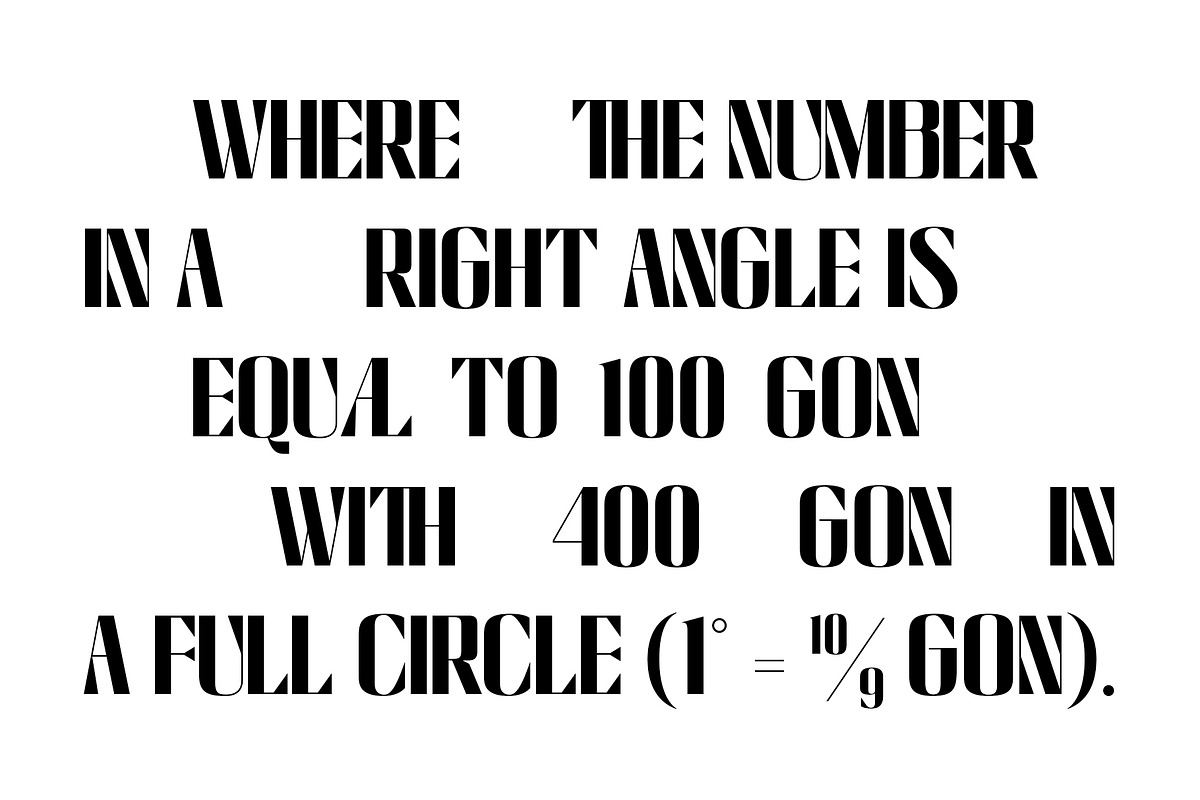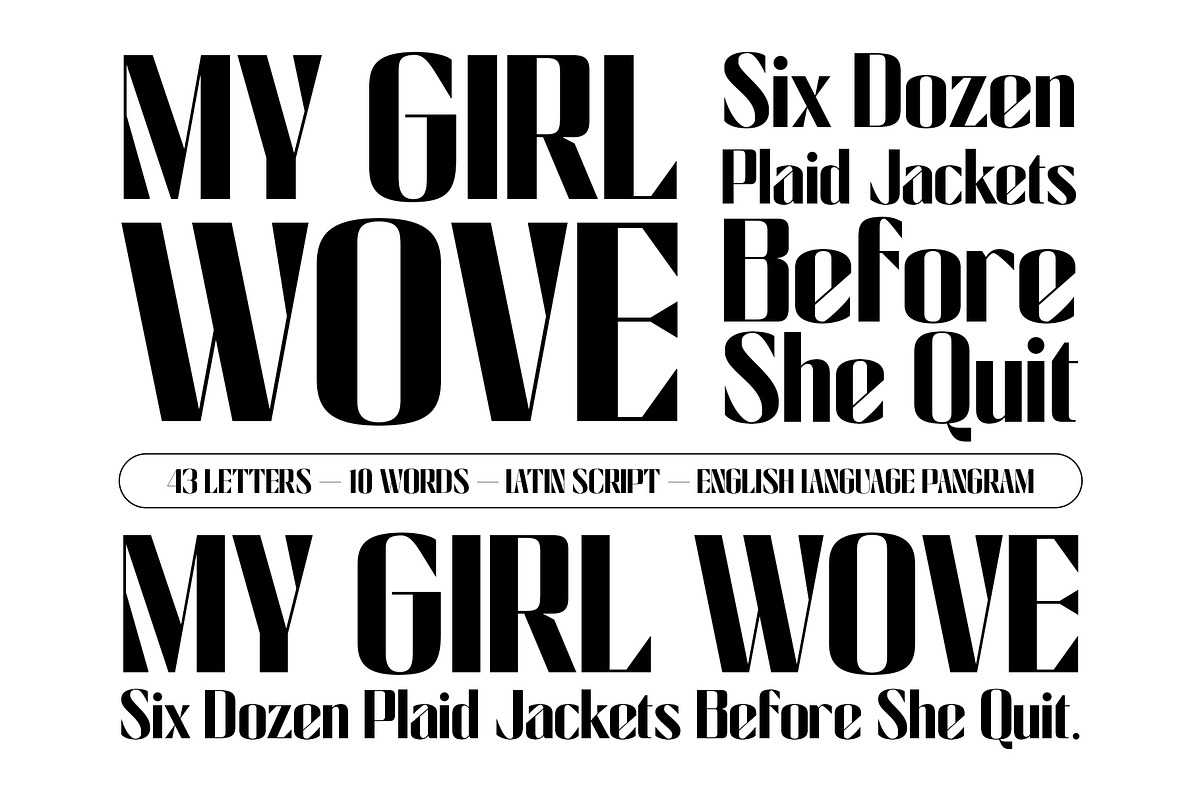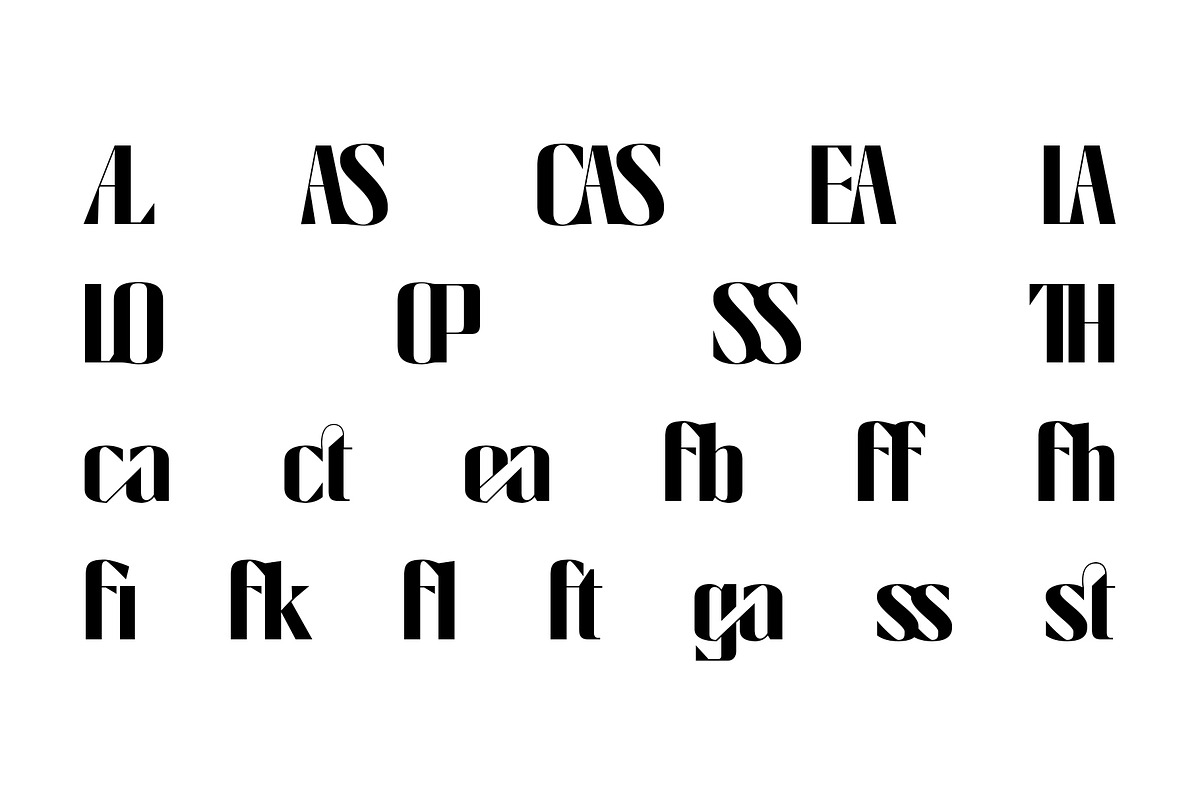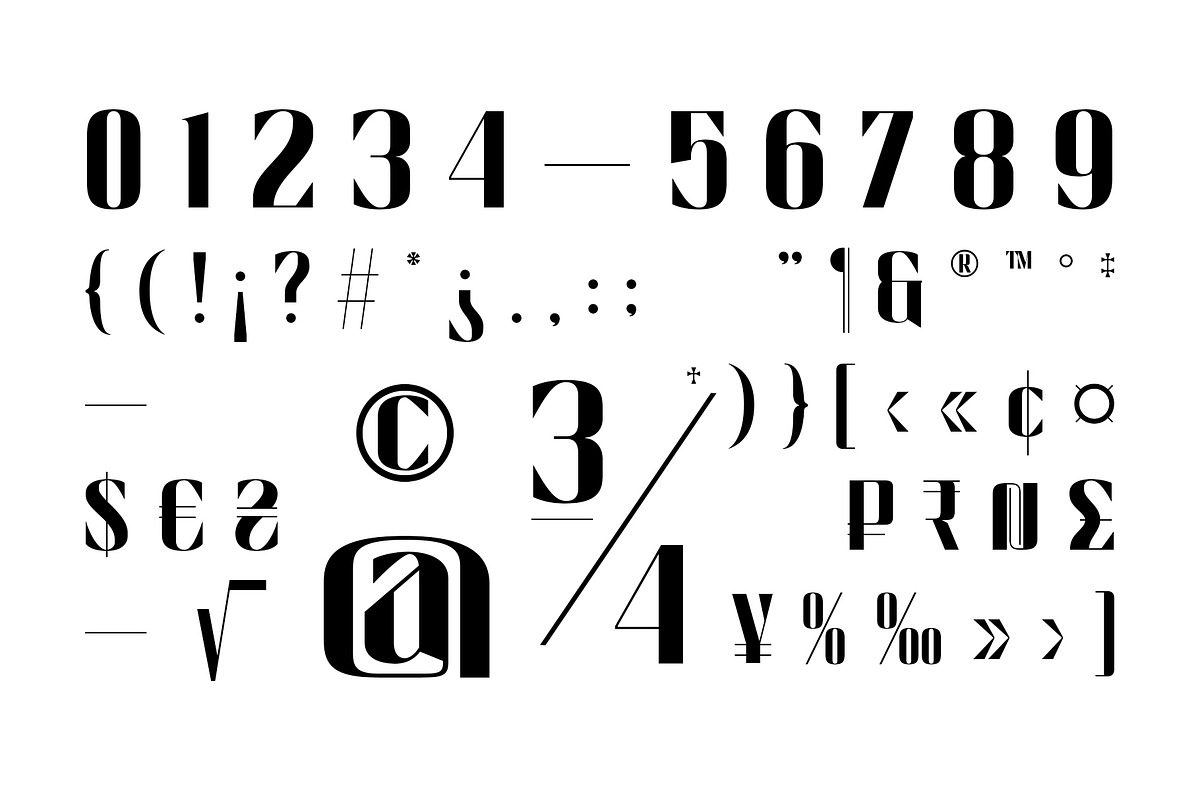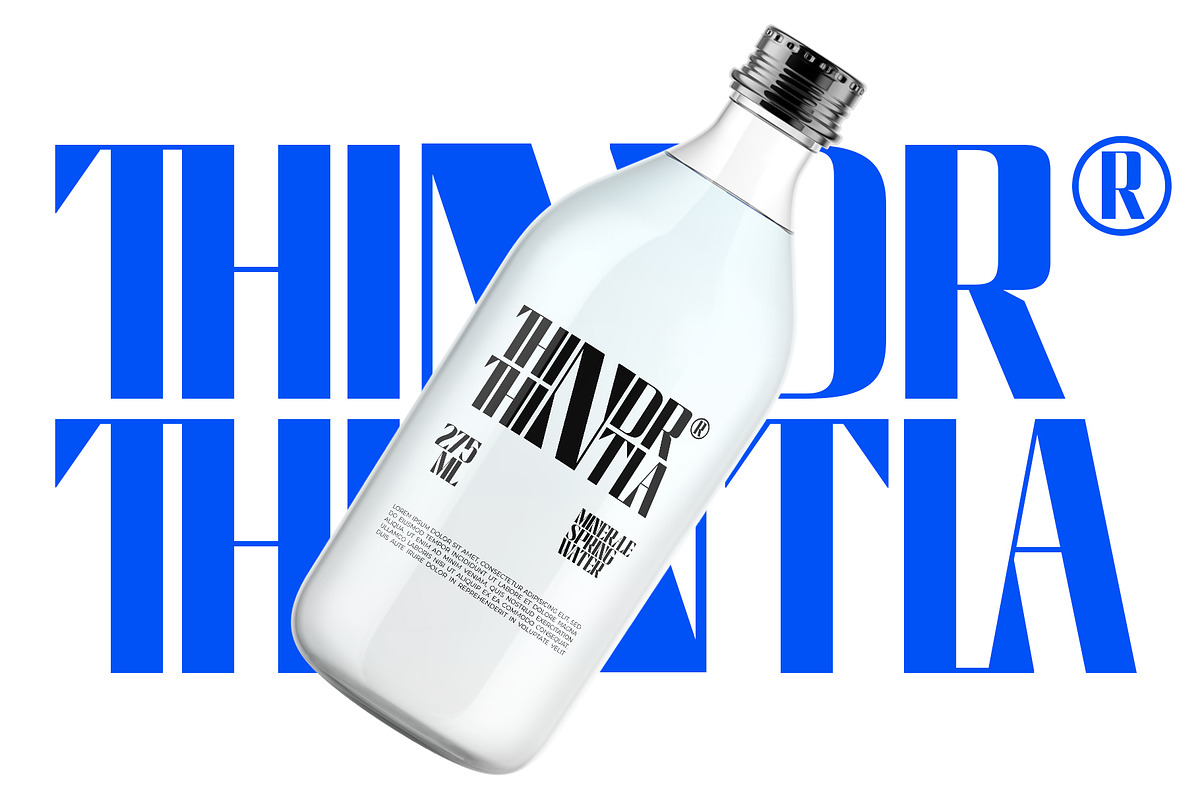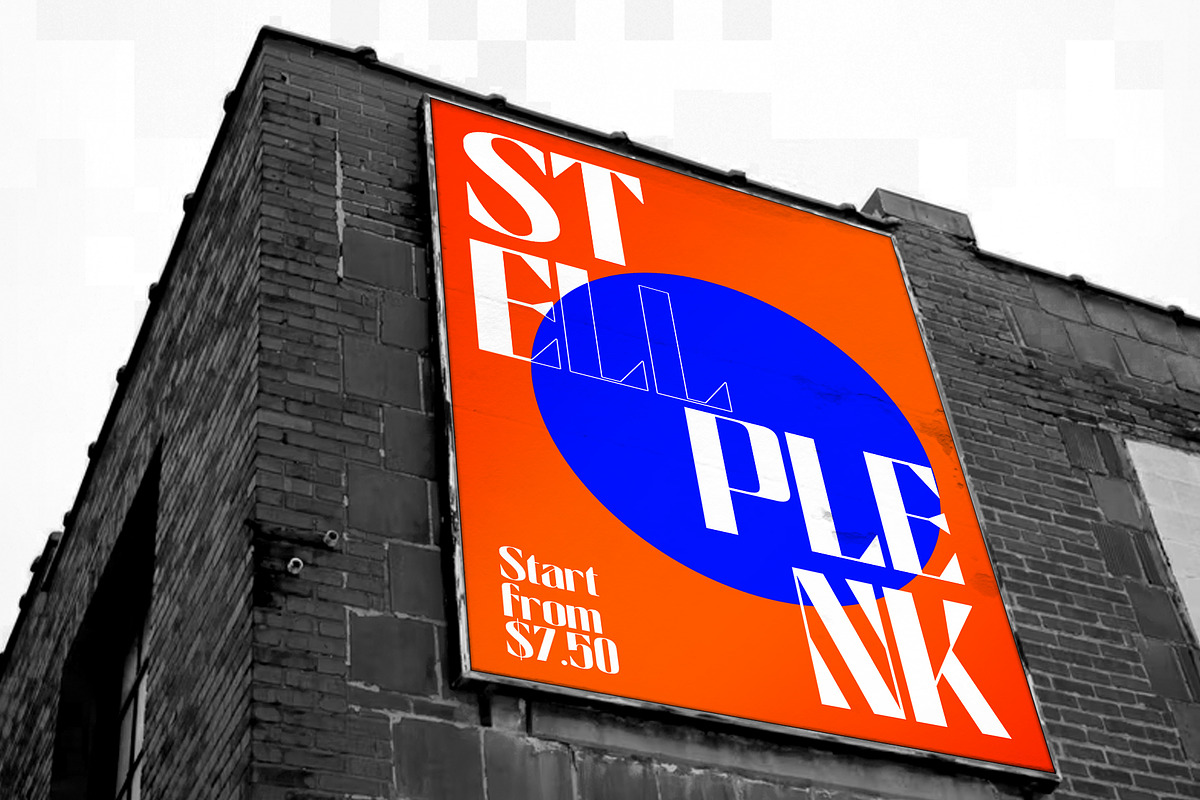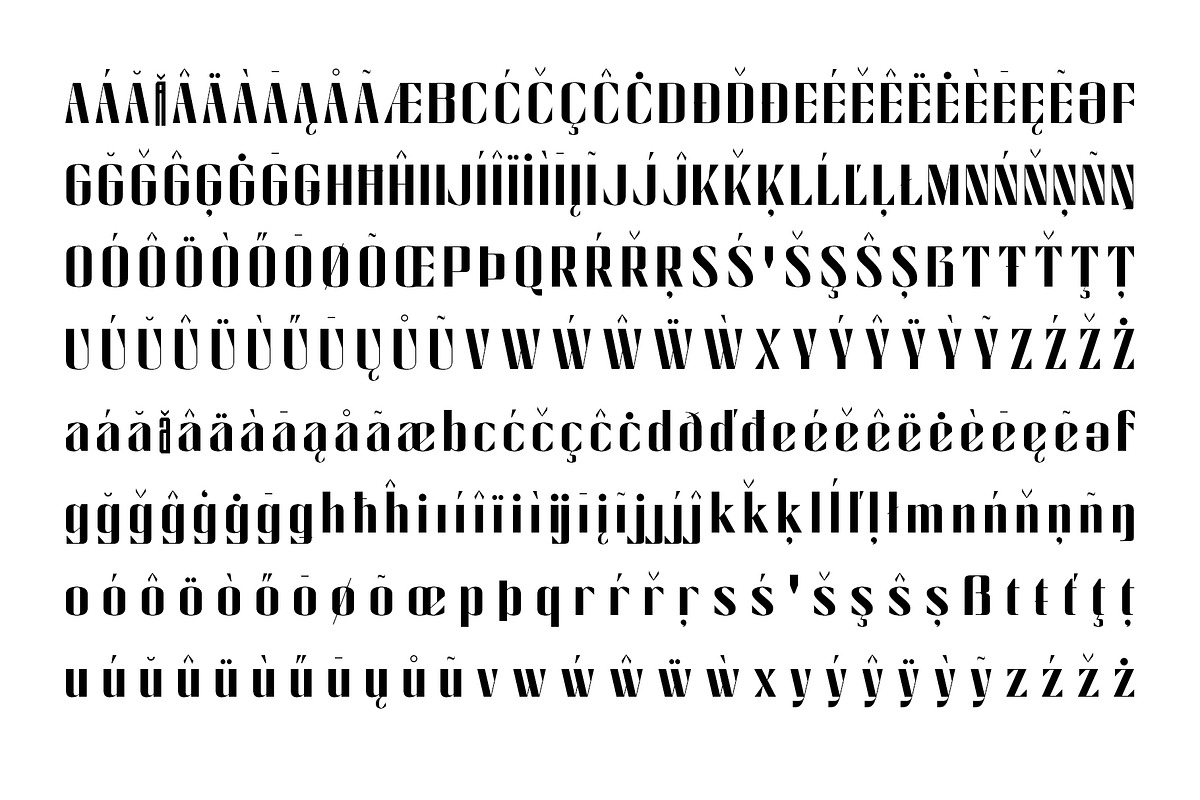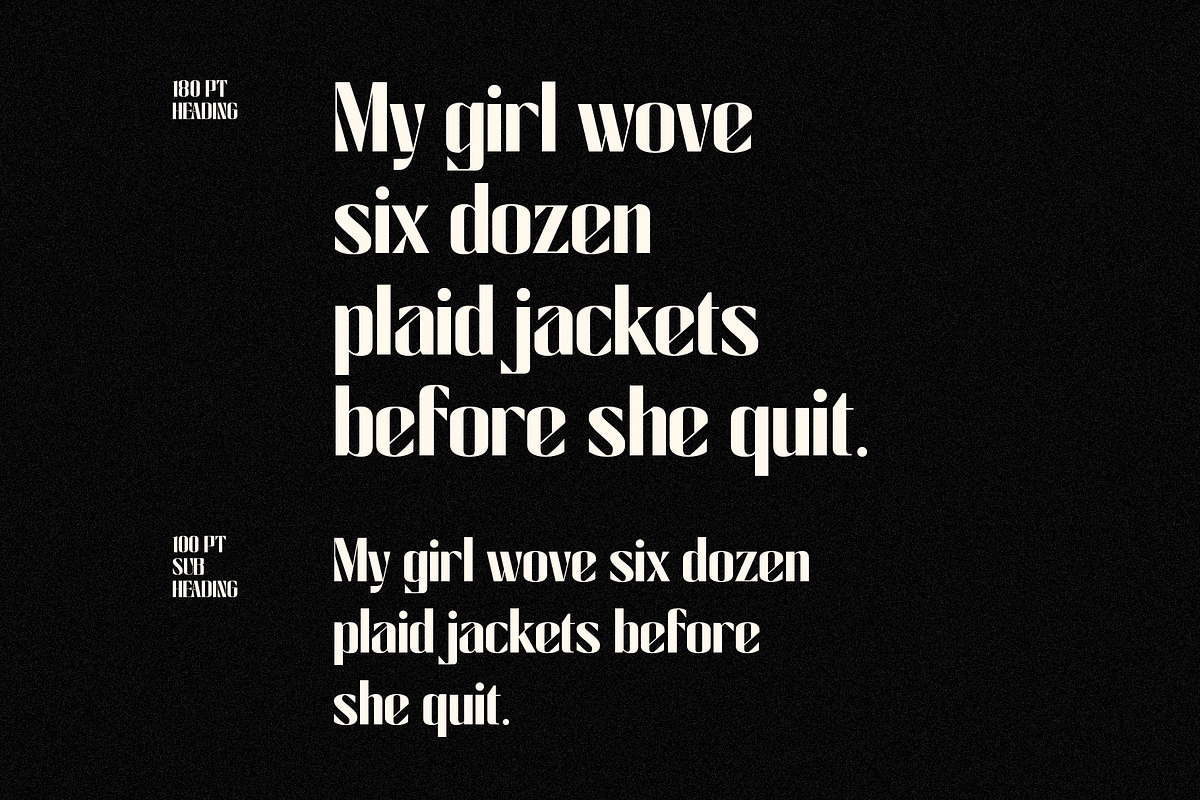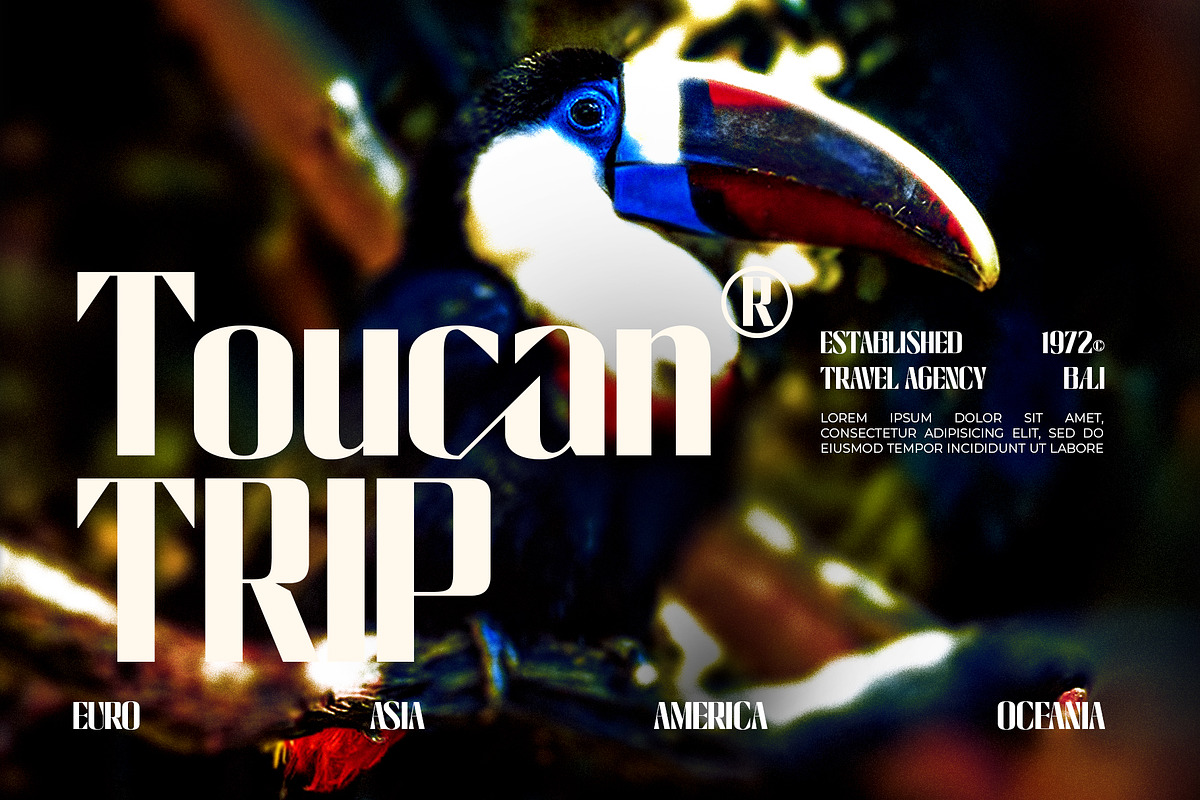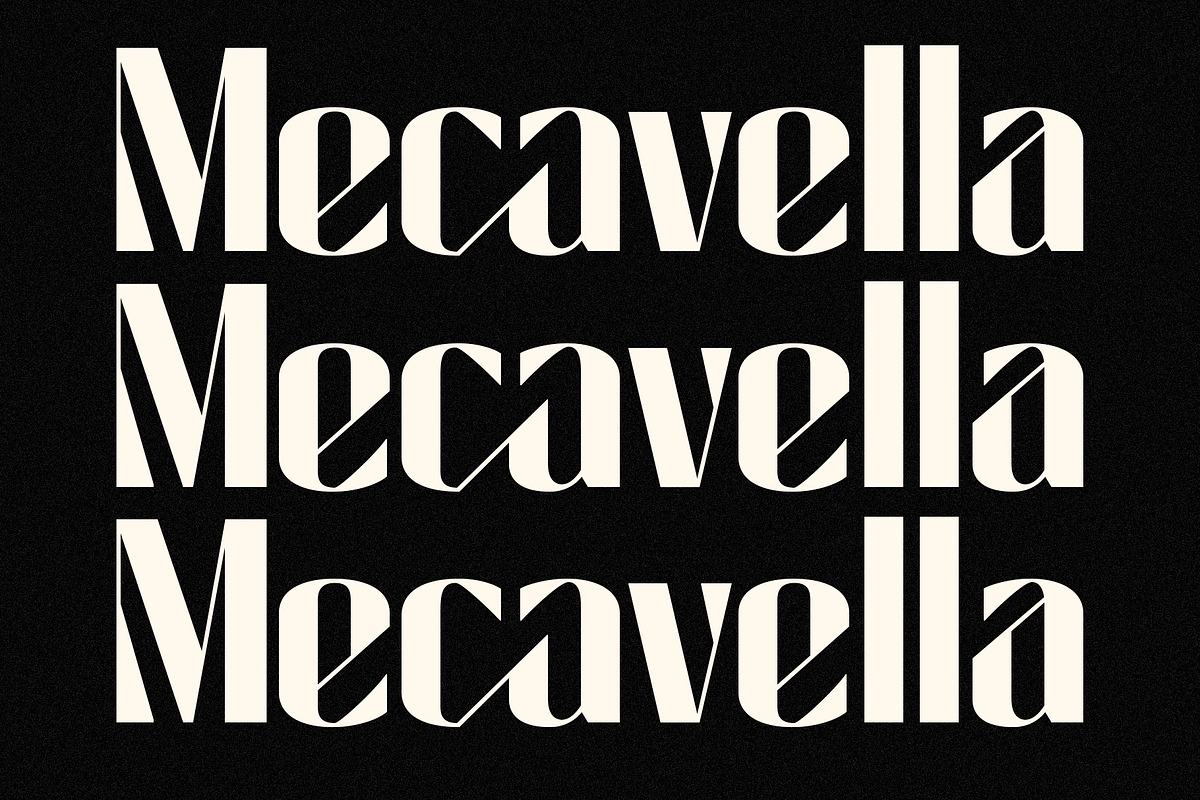
Cas Calisaya Elegant Font
Introducing Cas Calisaya
Elevate Your Design with Holographic Surrealism. Cas Calisaya, a Bold, Vibrant, Flare & Contrast Sans Serif Font, transcends traditional boundaries with its international appeal. This font captures the authenticity and minimalism of storytelling, ensuring timelessness and prominence. Firm, Smart, and Beautiful simultaneously, Cas Calisaya adds an eccentric twist with the drama of Brandon Grotesque and the fight-inspired Retro Flat style. Bold, Conceptual, and Decorative, Cas Calisaya is your go-to font for expressive and customized designs.
Experience the impressive impact of Cas Calisaya across various applications, from websites, packaging, logos, and branding to album covers, 3D projects, and posters. This font is meticulously crafted for a perfect balance of modernity and luxury, establishing trustworthiness and innovativeness. Its thunderous presence, akin to the brand font style, ensures an attention-grabbing and luxurious touch reminiscent of Risoprint aesthetics. High contrast gives a graceful space, making your designs stand out. Cas Calisaya's elegance and expressiveness make it suitable for luxury and fashion-oriented projects.